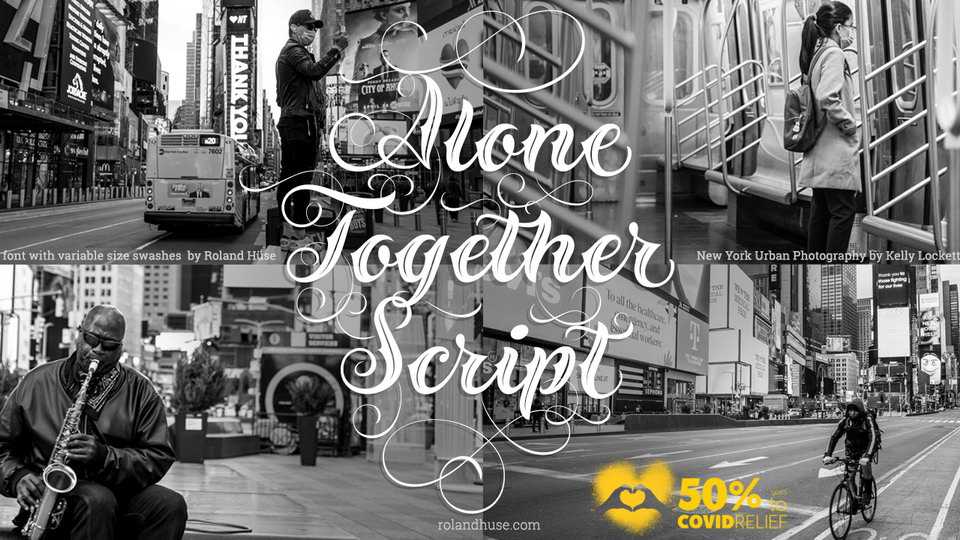
Download Alone Together Script font, a tattoo style typeface created and inspired during quarantine times. Alone Together is a variable font with size-variable swashes and OpenType features such as Stylistic Alternates for lowercase letters.